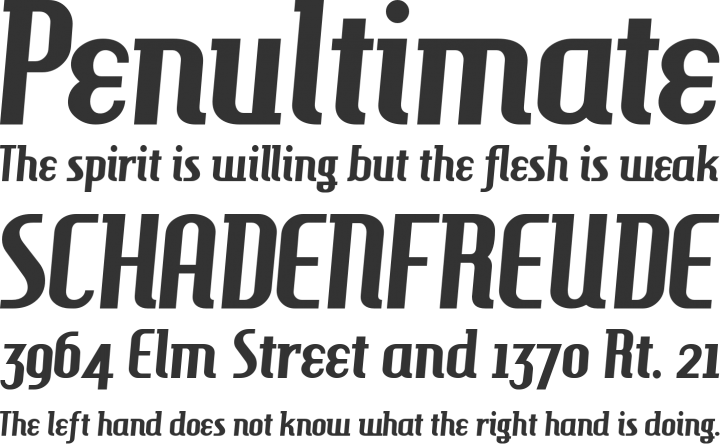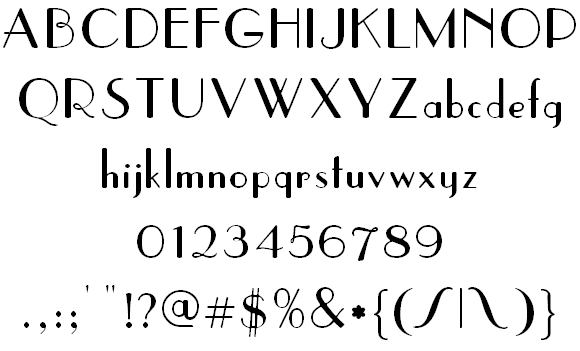
Antechamber
Author: Alex Varanese
: “Antechamber, a hyper stylized display face that draws its inspiration from architecture, drafting, industrial design and other stuff that sounds cool.”
Parisish
Author: George Williams
: A stylish yet elegant display font, if I ever open a restaurant, I would use this font to write something on the windows.
Molesk
Author: Pedro Lobo
: A geometric display font, that I think would be great for a hipster type logo.
Hamburger Heaven
Author: Nick Curtis
: Hamburger Heave is an angular display font, with a certain retro futuristic vibe.